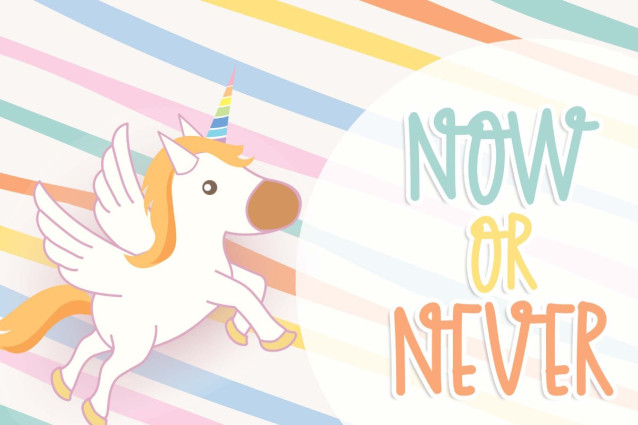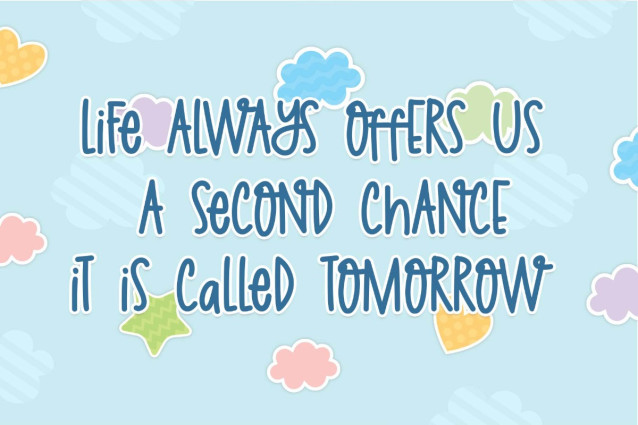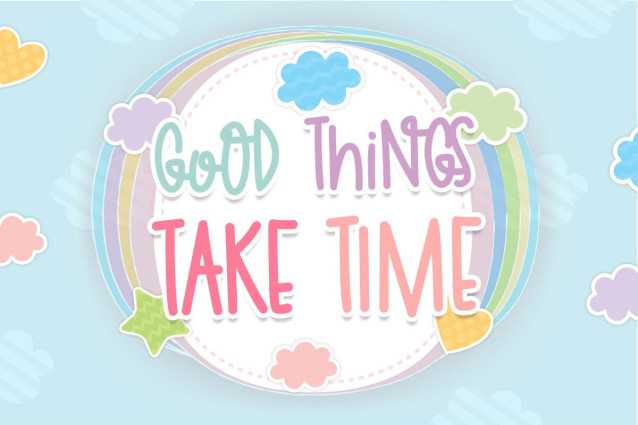
Skyhigh Font
Skyhigh Font is a sleek and modern typeface crafted to elevate your designs to new heights. With its clean lines and contemporary appeal, this font is perfect for a variety of applications, including branding, websites, posters, and more. Immerse your projects in a stylish and sophisticated atmosphere with the Skyhigh Font.